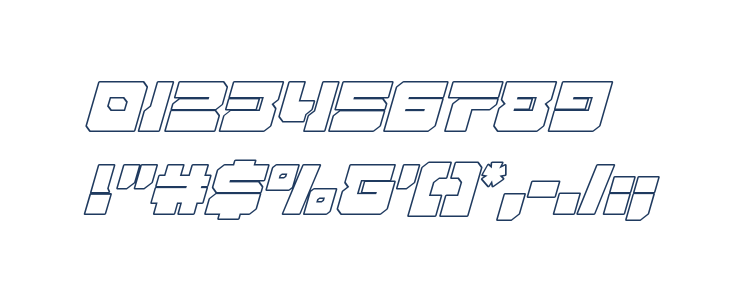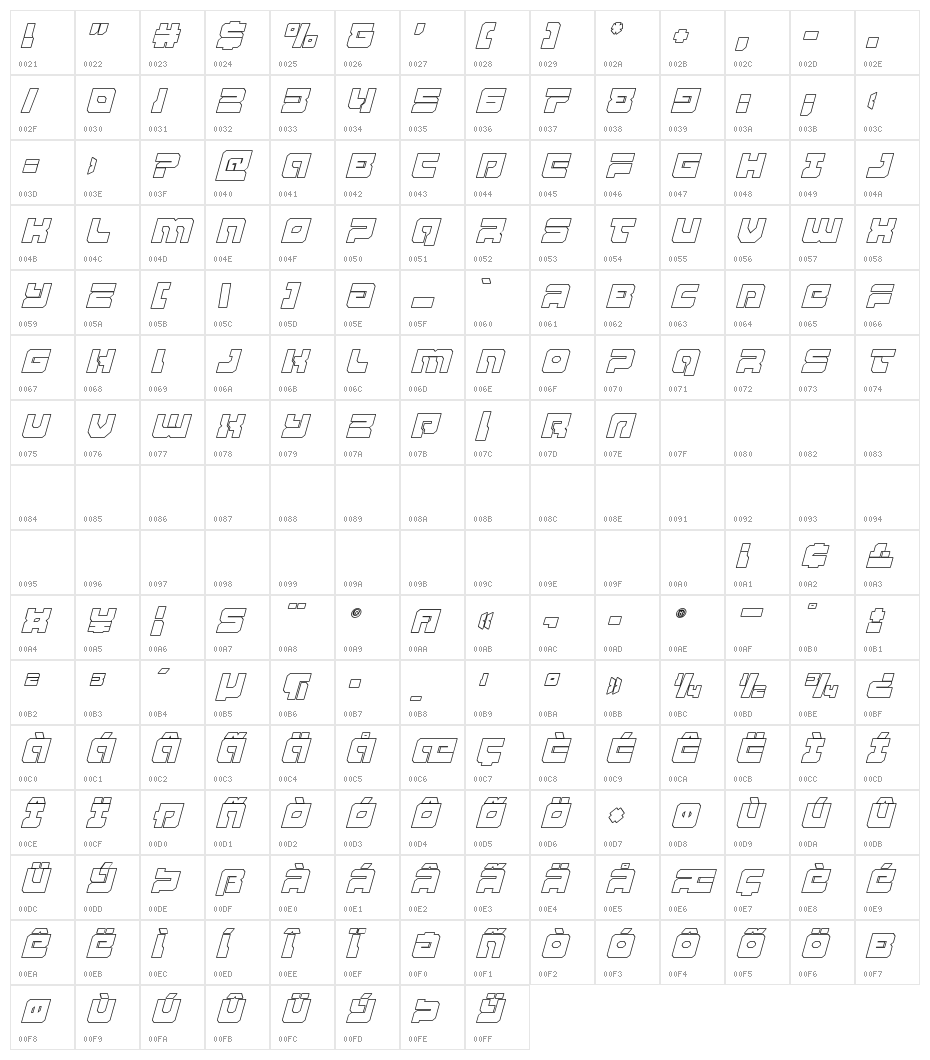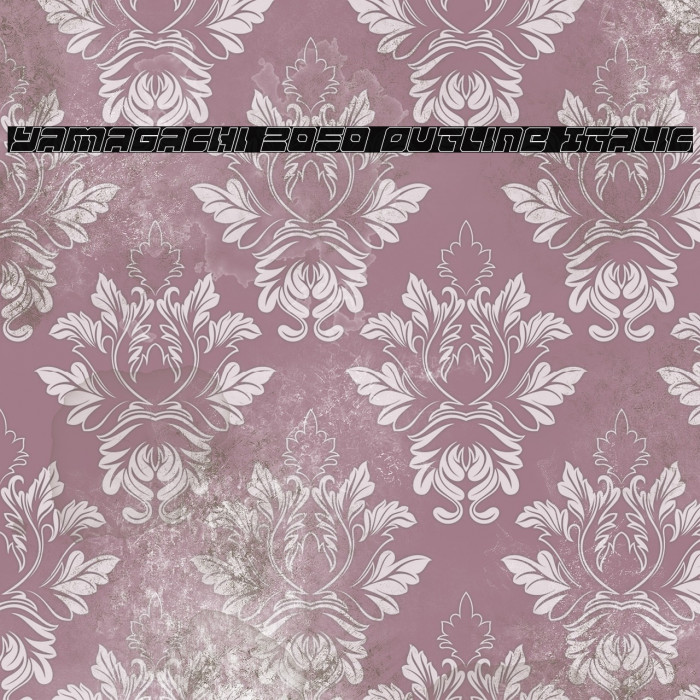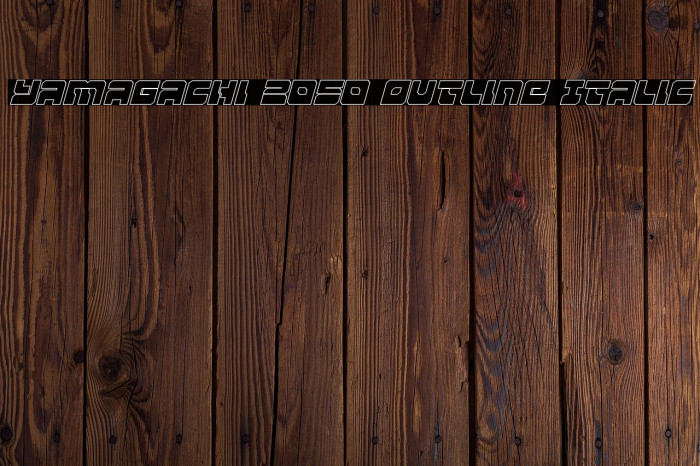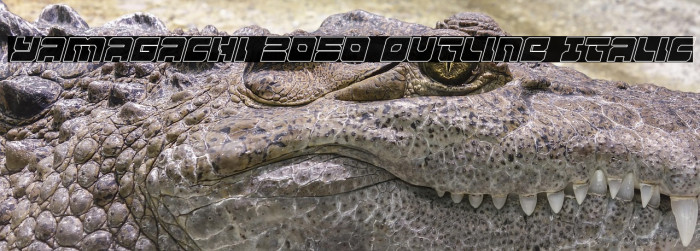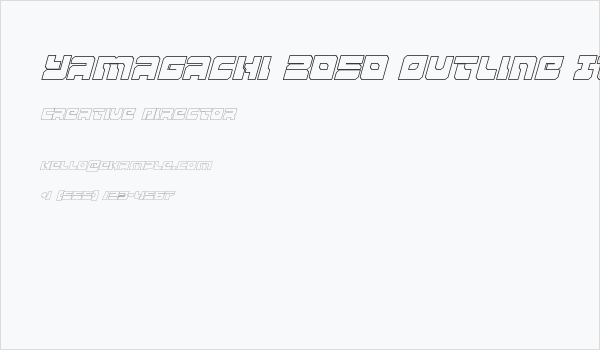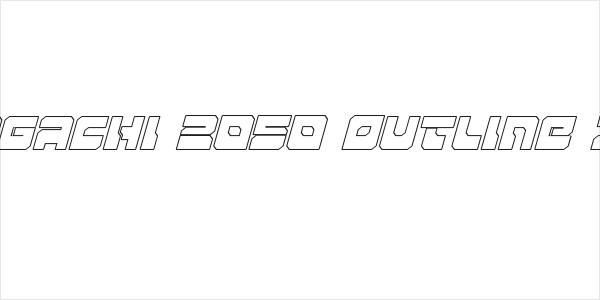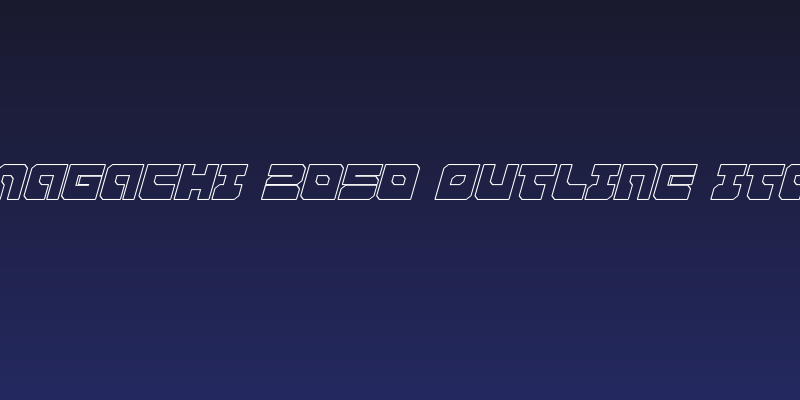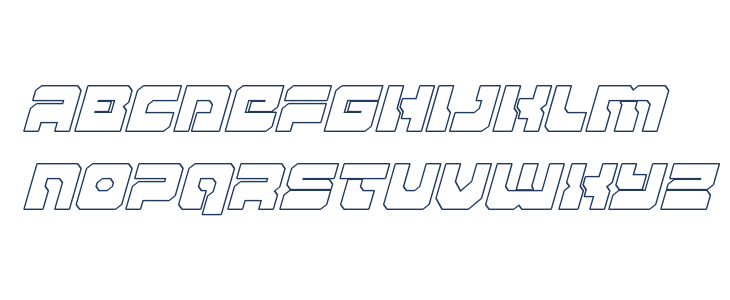
Yamagachi 2050 Outline Italic Font
Yamagachi 2050 Outline Italic Description
This font features a futuristic and geometric design with an outline style that gives it a distinct and modern appearance. The characters are italicized, adding a dynamic and forward-leaning aspect to the overall look. Each letter and number is crafted with sharp angles and clean lines, creating a sense of movement and energy. The uppercase and lowercase letters maintain a consistent style, while the numerals and special characters complement the overall design. This font's unique outline and italic features make it stand out, ideal for projects that require a bold and innovative aesthetic.